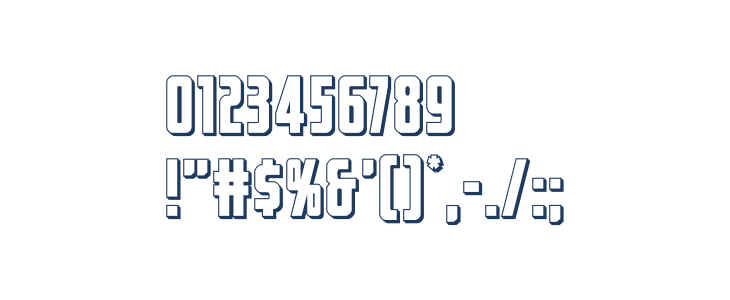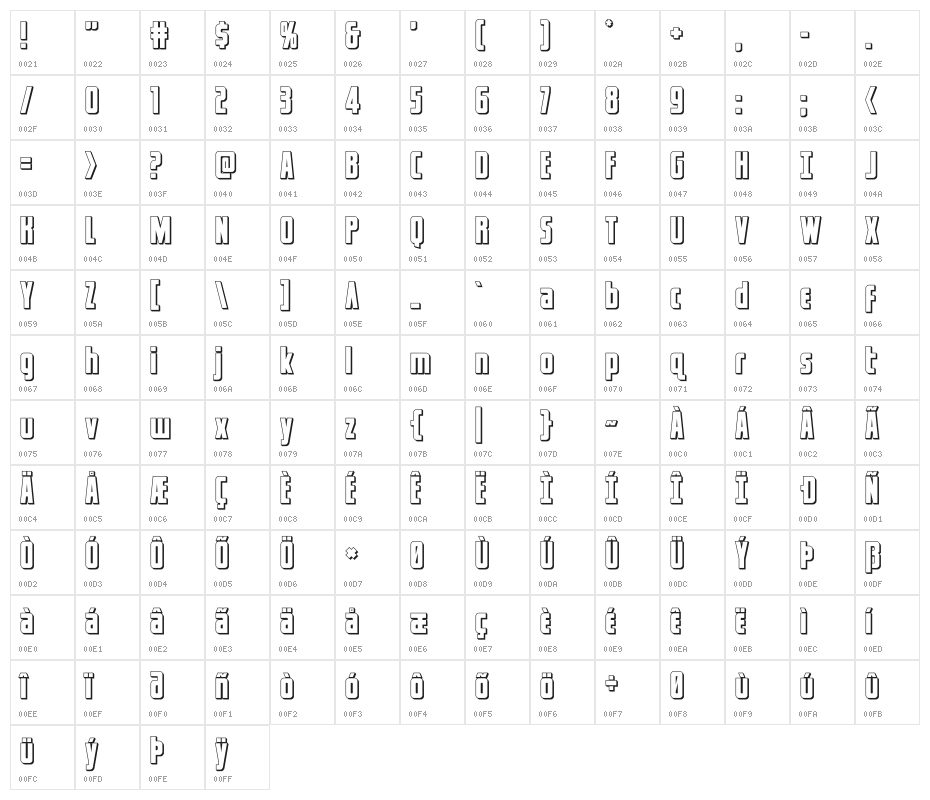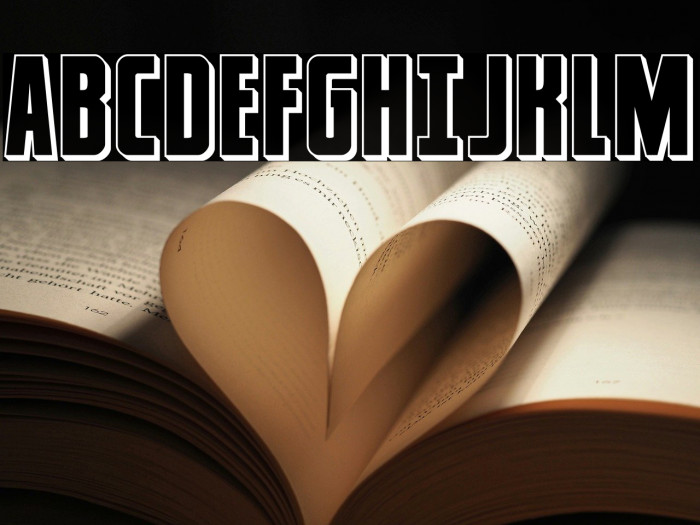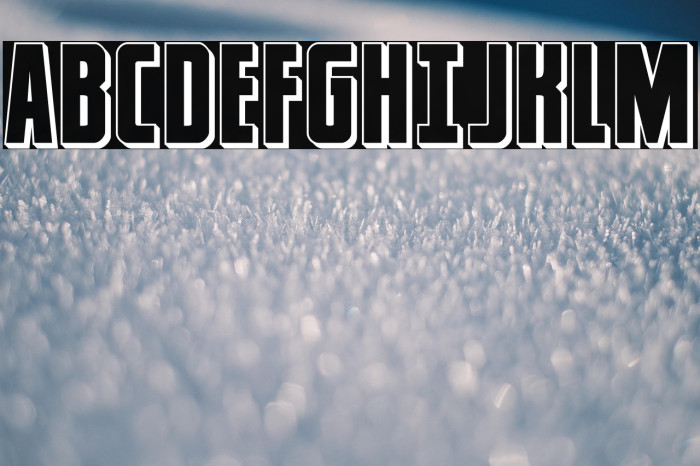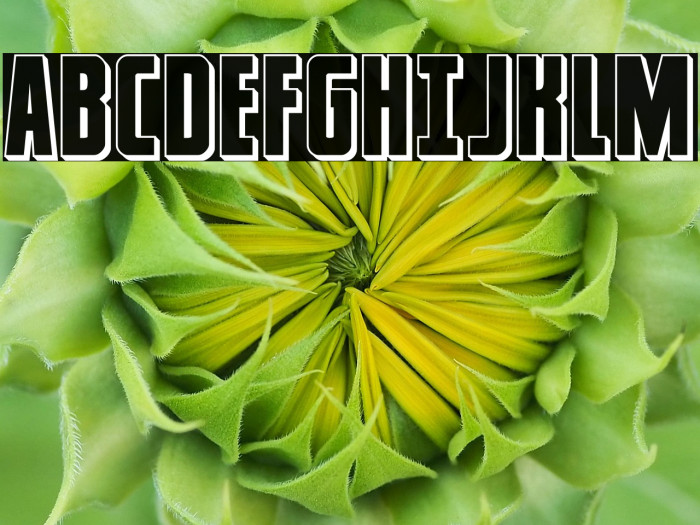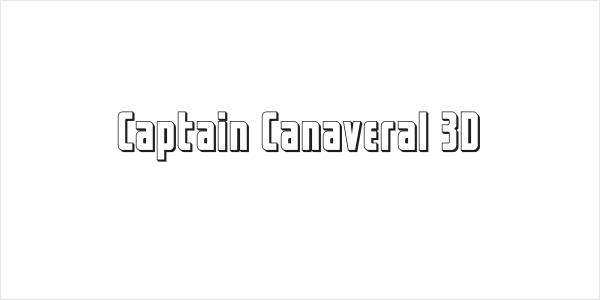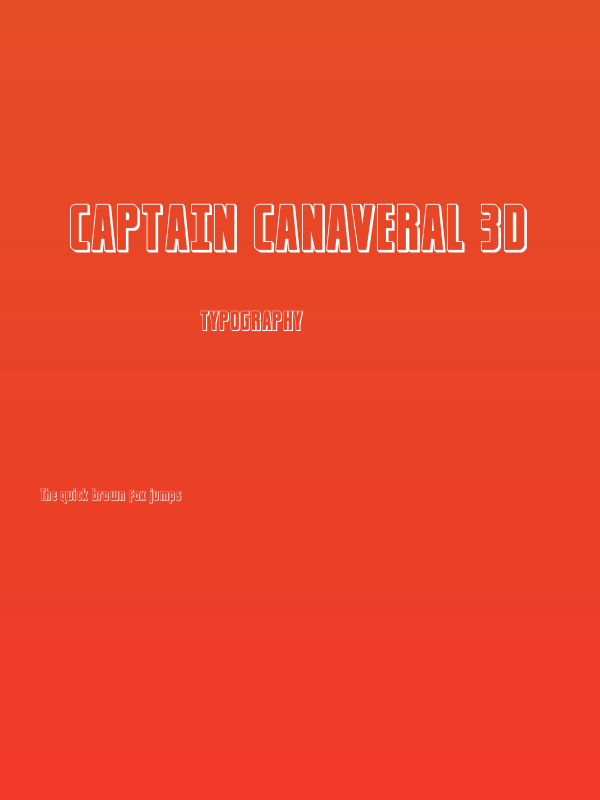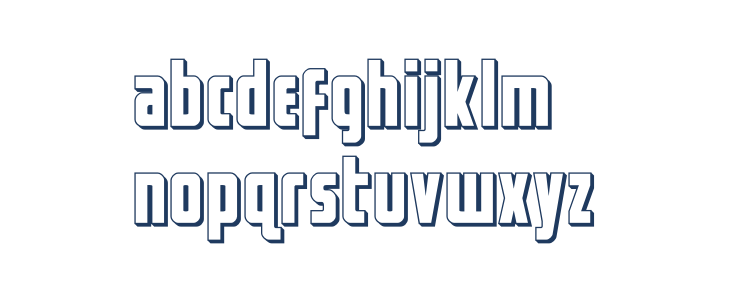
This font features a bold, three-dimensional style with a strong presence. The characters are outlined, creating a shadow effect that gives them depth and a sense of movement. The uppercase and lowercase letters maintain a consistent geometric structure, with sharp angles and clean lines. The numerals and special characters follow the same design principles, ensuring uniformity across all glyphs. This font is highly legible and commands attention, making it ideal for impactful designs.
| Proposed Projects | Ideal for posters, headlines, logos, and any design requiring a strong visual impact. |